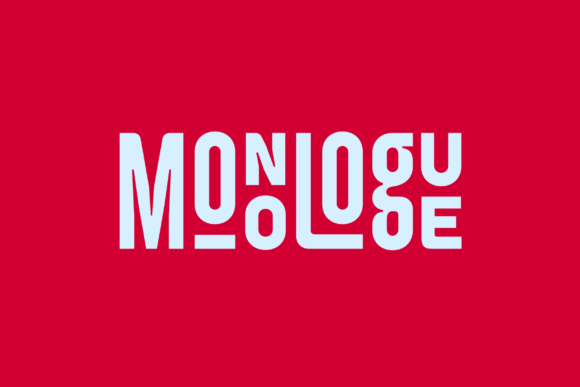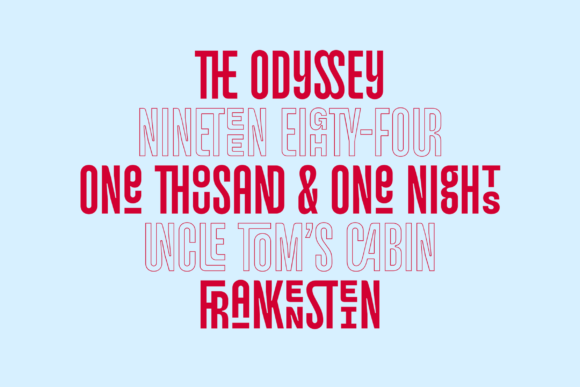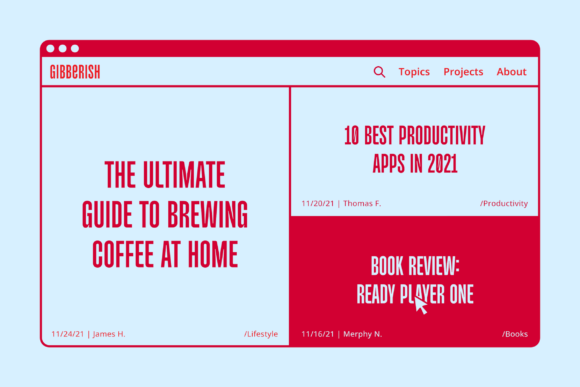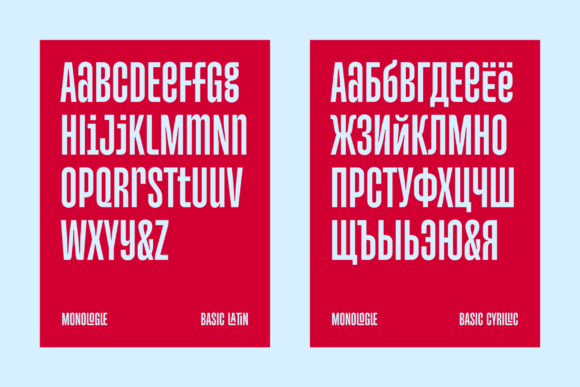
Monologue Font: Bold & Condensed Sans Serif for Eye-Catching Logo Design
About the Monologue Font
Step up your design game with Monologue Font, a font that exudes confidence and style. Monologue is a simple, condensed sans serif font, featuring a bold and complex vibe. It was purposely crafted to be used in large point sizes, although it doesn’t lose its magic in small point sizes. It is perfect for headlines, billboards, magazines, websites, titles, posters, branding, and logos.
Monologue’s bold, complex nature makes it ideal for impactful headlines, branding projects requiring a strong visual identity, and posters demanding attention. Its condensed structure works well in limited spaces, such as logos or packaging design where legibility at smaller sizes is crucial. However, avoid using Monologue for body text or long-form content; its weight and condensed design can hinder readability in smaller point sizes over extended passages.
Consider pairing Monologue with a clean, neutral sans-serif like Open Sans for body copy to balance its boldness. For a more sophisticated feel, a classic serif like Garamond can create elegant contrast. If a playful touch is needed, a rounded sans-serif such as Lato could provide a softer counterpoint.
Monologue exudes a confident and modern personality, best suited for brands projecting strength, innovation, or a sophisticated edge. Its versatility allows it to adapt to various styles, from minimalist designs to those with bolder graphic elements.